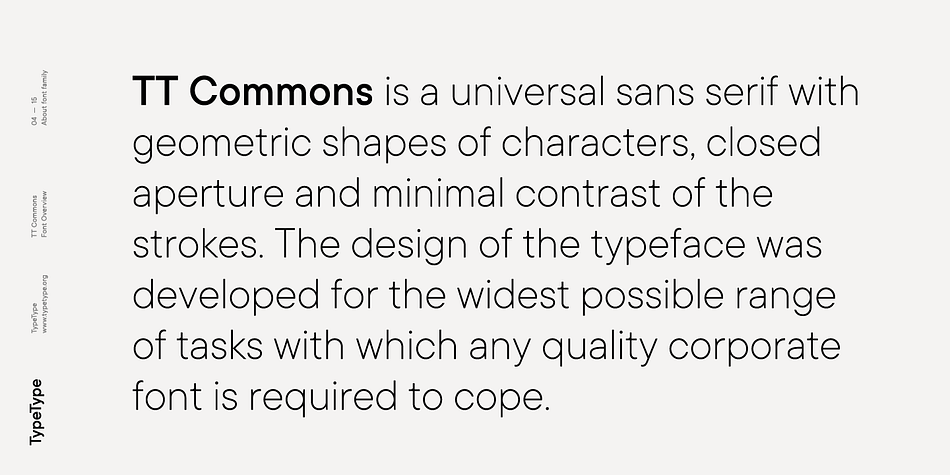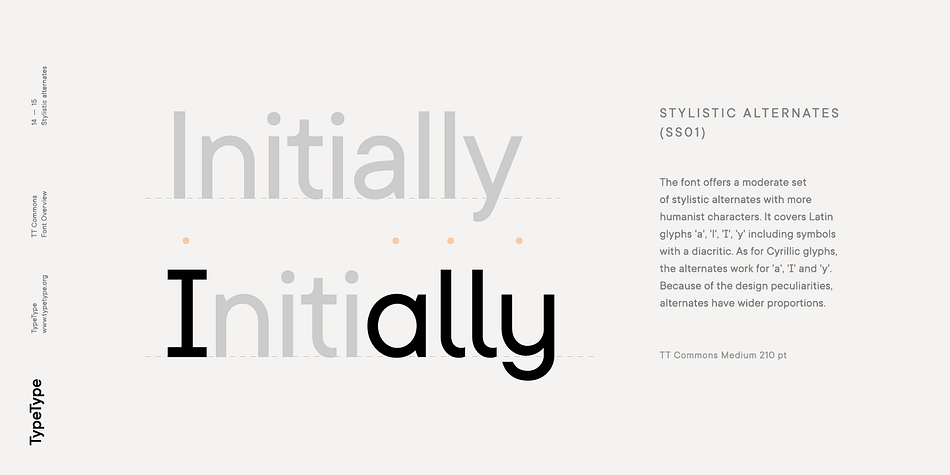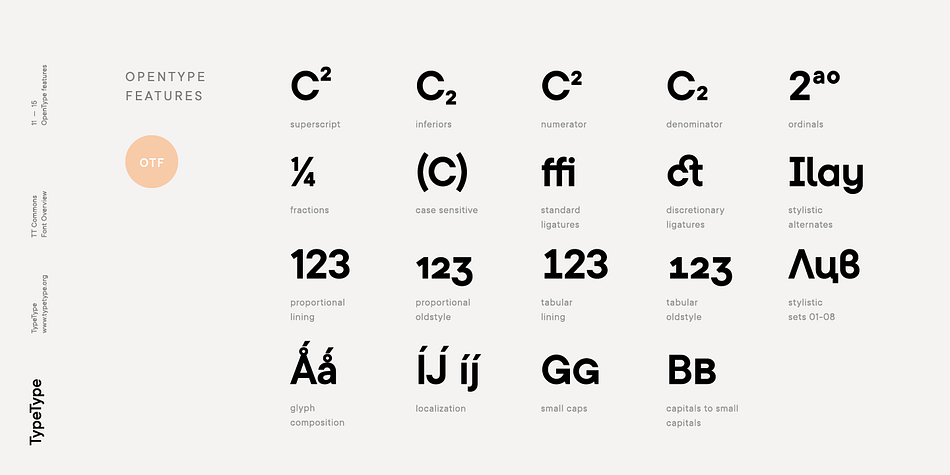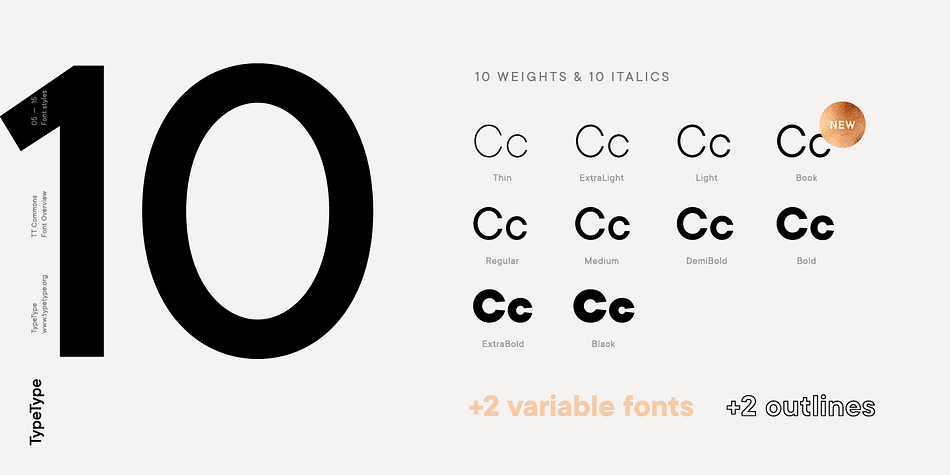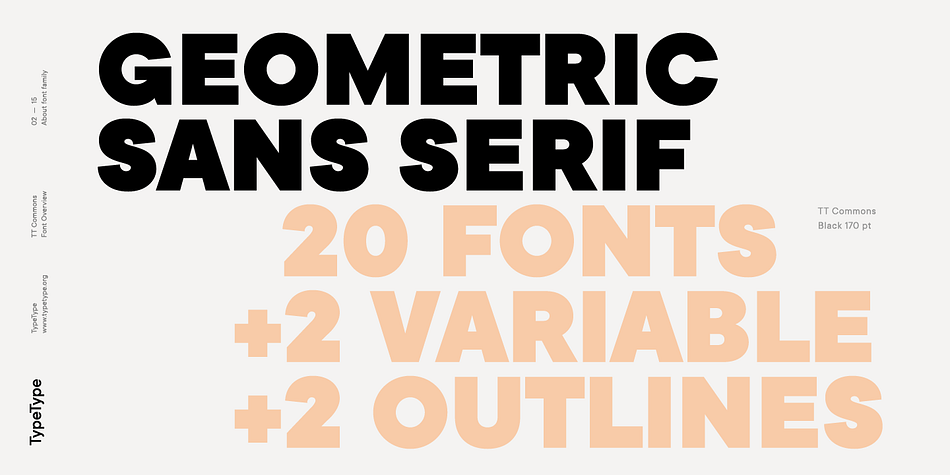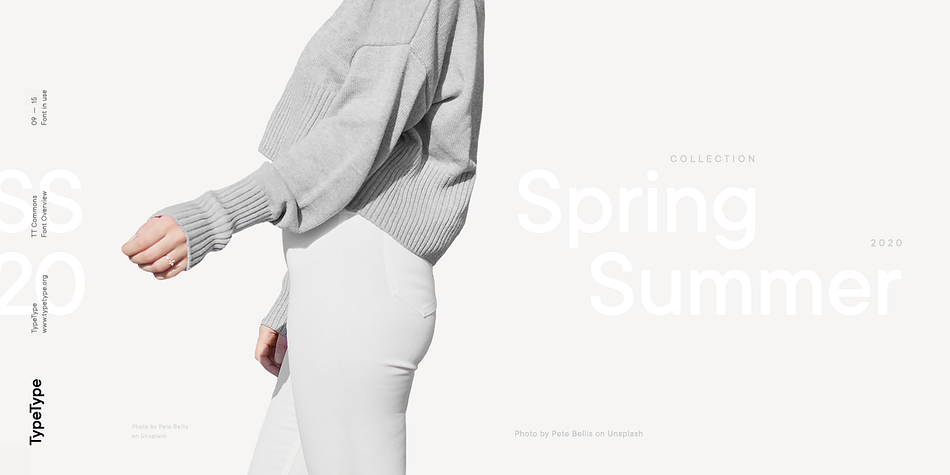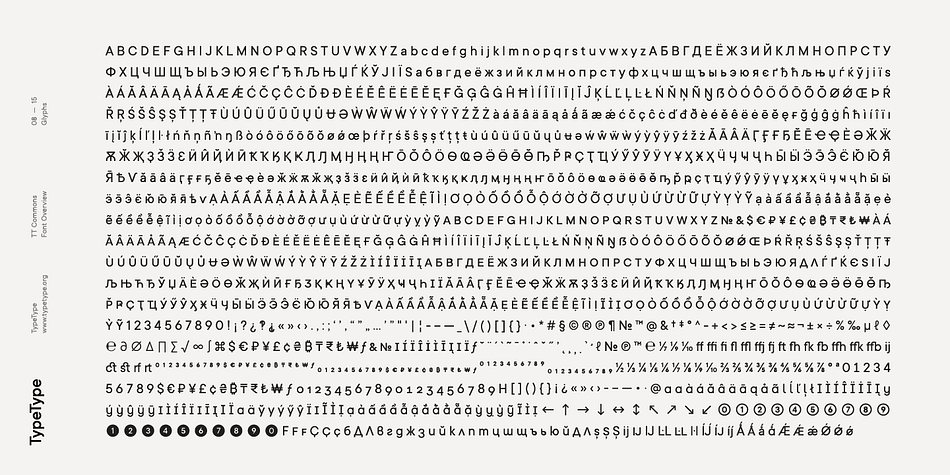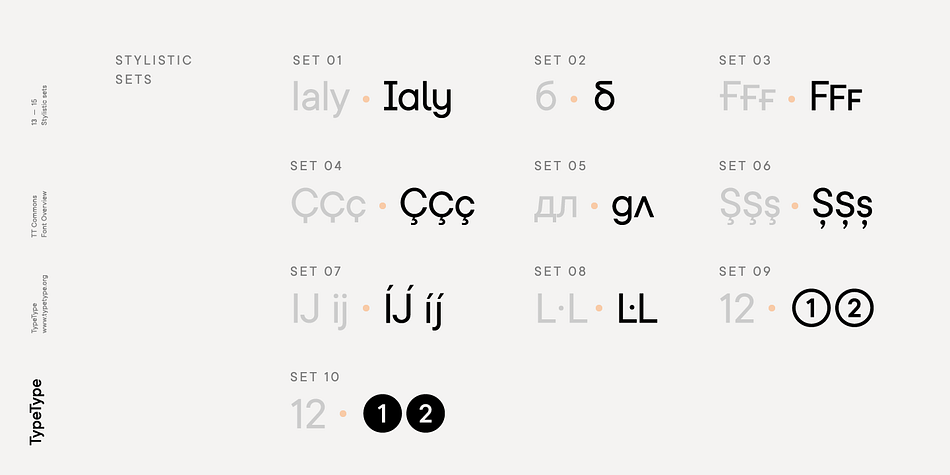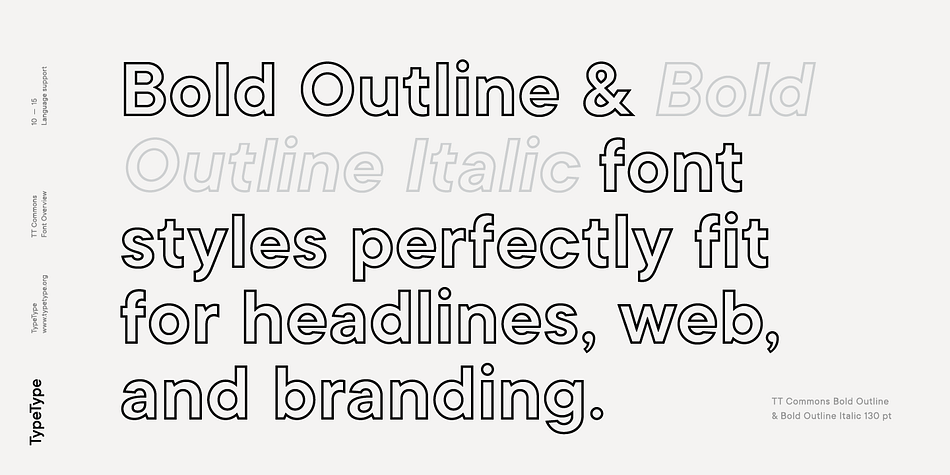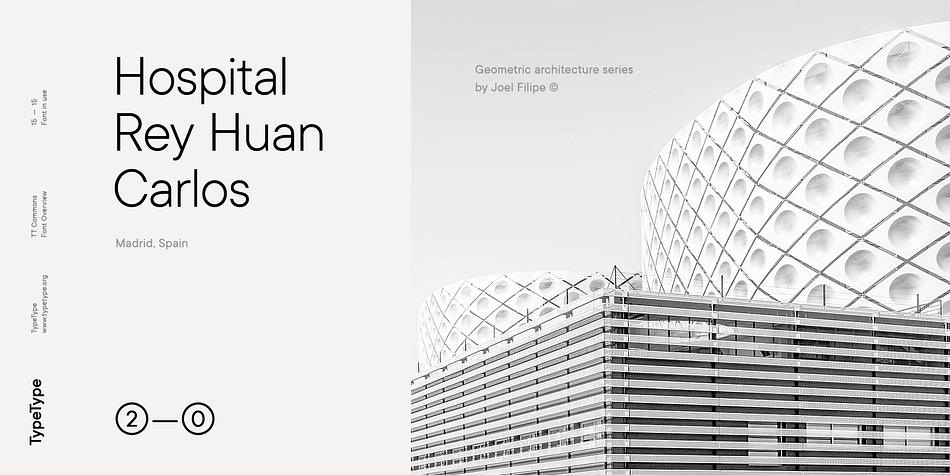
Designed by Ivan Gladkikh and Pavel Emelyanov, TT Commons Classic is a sans serif font family. This typeface has twenty-four styles and was published by Typetype.
• Support for more than 260+ languages: extended Latin, extended Cyrillic, Vietnamese, Bulgarian localizations and many, many other languages
• 29 OpenType features in each style (except outline styles): small capitals, stylistic alternates, ligatures, old- style figures and other useful features
TT Commons is a universal sans serif with a minimal contrast of strokes, a closed aperture and geometric shapes of characters. The design of the typeface was developed for the widest possible range of tasks with which any quality corporate font is required to cope.
The history of TT Commons originates from the new TypeType logo, which appeared in late 2016 as part of the rebranding project. Ideas embedded in the logo formed the basis of two fully developed faces (regular and medium), which in early 2017 became the official corporate typeface of the TypeType Foundry.
Initially, we did not plan to release TT Commons for sale, but given the number of incoming requests, we changed our decision. At the same time, we have significantly improved the typeface: we increased the number of faces to 18, added small capitals for the Latin and Cyrillic alphabets, expanded the character case to 771 glyphs, introduced 18 OpenType features, and included experimental hinting performed at our studio by our team.
Low contrast strokes and averaged drawing of letters makes TT Commons excellent for large arrays of text. On the other hand, individually developed design of each glyph makes it possible to use it successfully as a display font. The typeface intentionally does not have distinctive decorative details. On the contrary, it wins hearts with his laconism, simplicity and sharpness of forms, which set the seasoned corporate style for years to come.
The name TT Commons comes from the word ‘common’ (widely accepted, typical, frequent)—this typeface can be used for any everyday tasks related to typography. And small capitals, stylistic alternates, ligatures, arrows, different types of figures and other features (ordn, frac, case, c2sc, smcp, sinf, sups, numr, dnom, tnum, onum, lnum, pnum, liga, dlig, calt, salt, ss01) add significant functionality. If you are in doubt about which font to choose, pick TT Commons, it will definitely work.